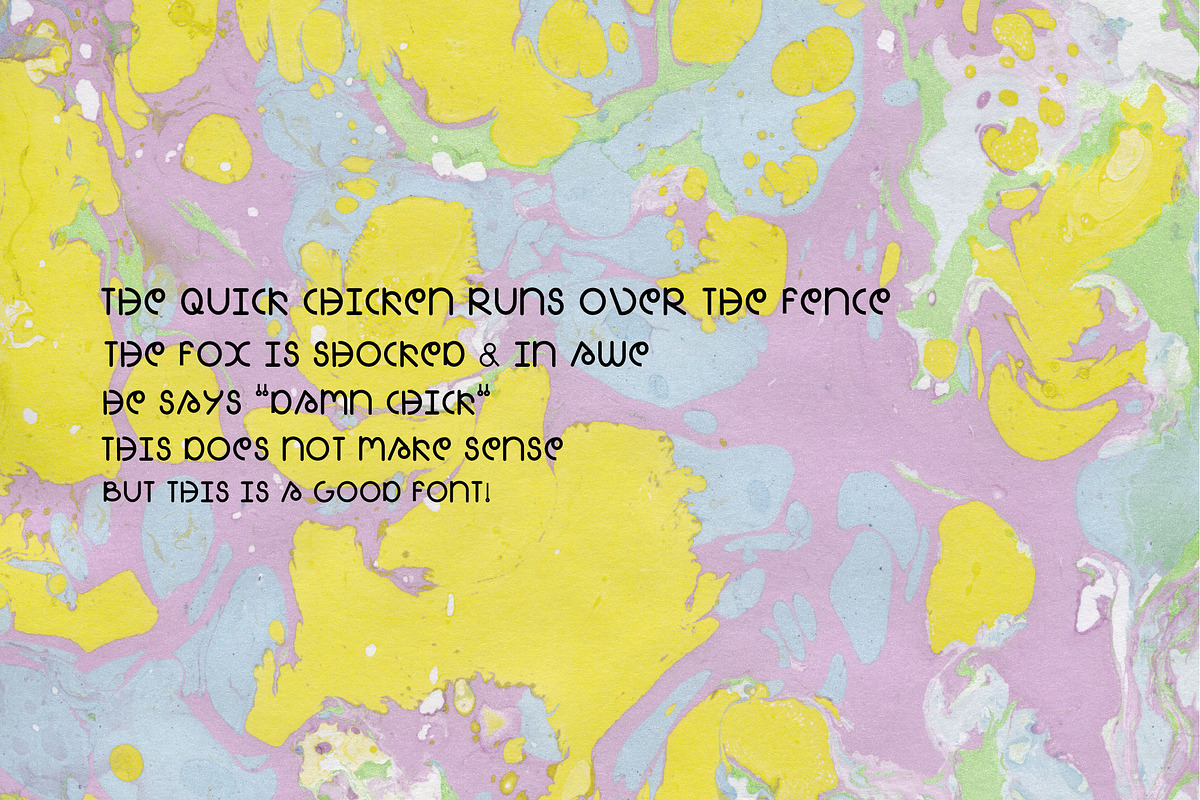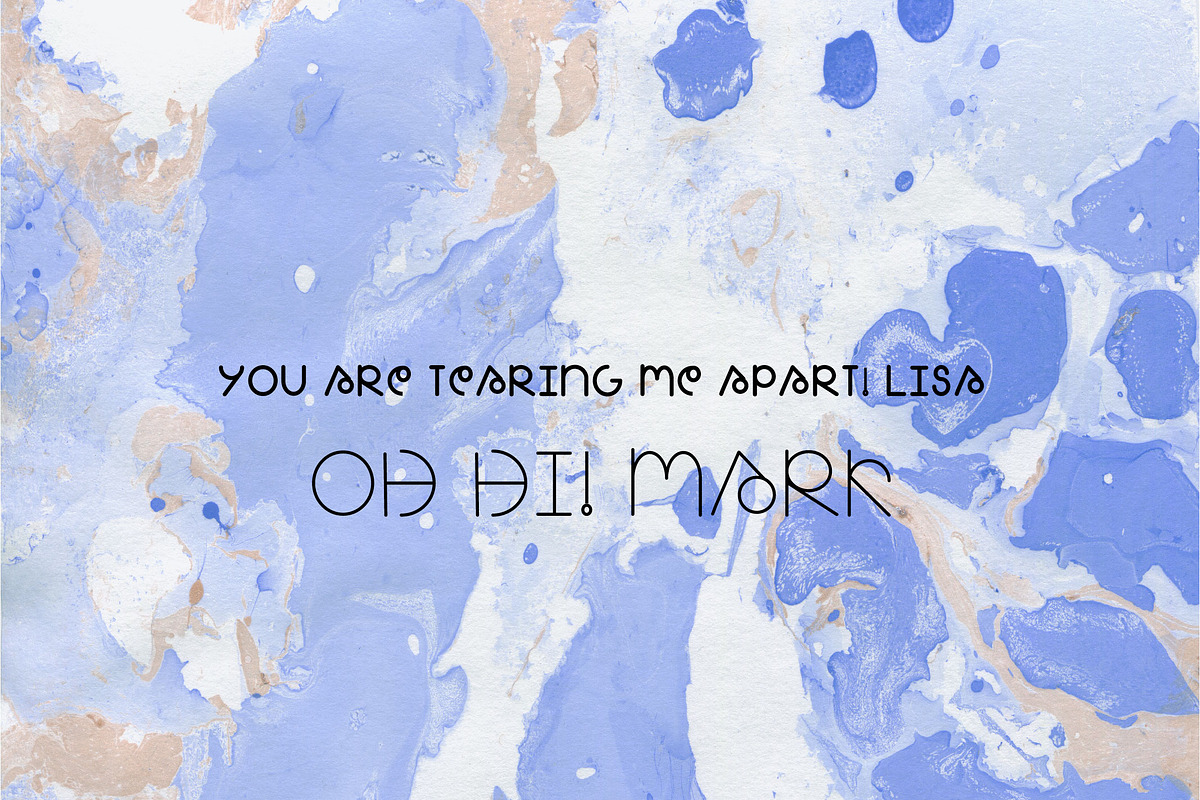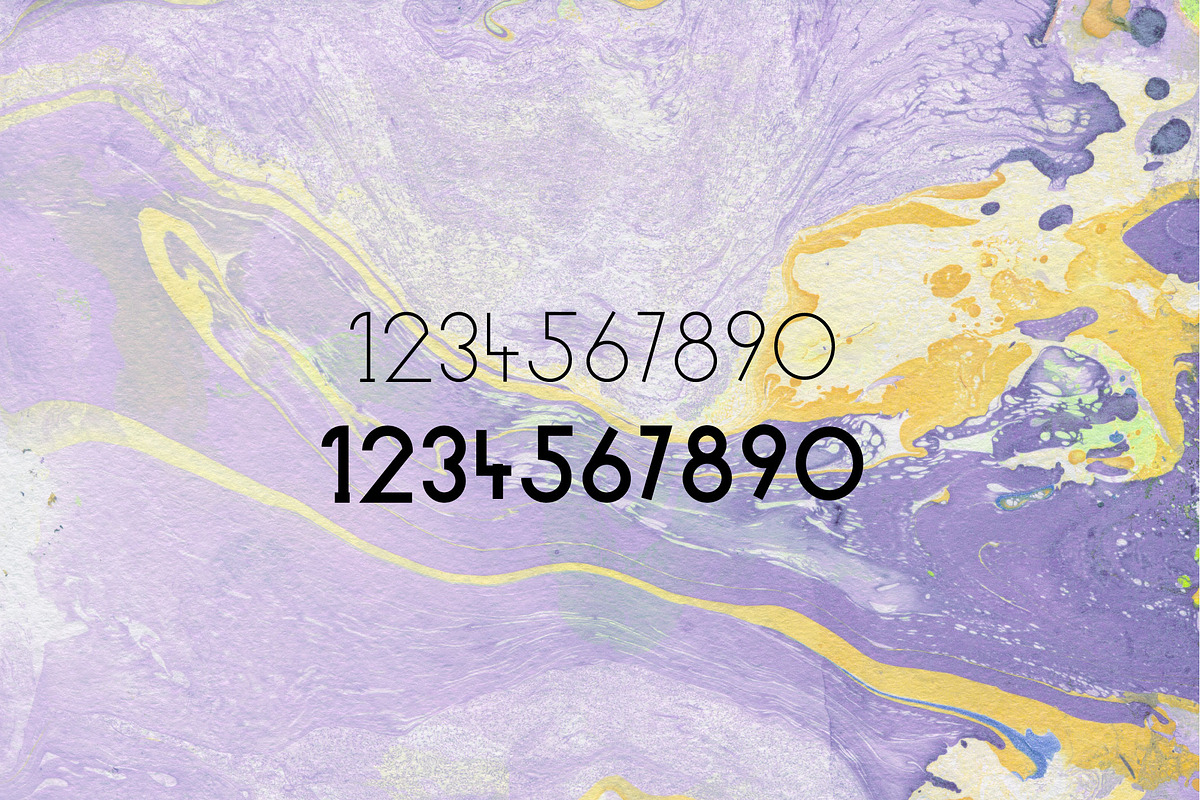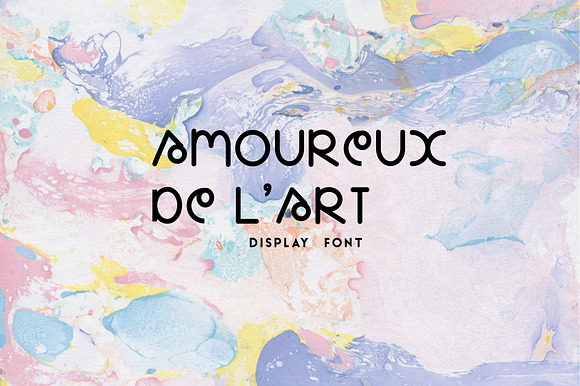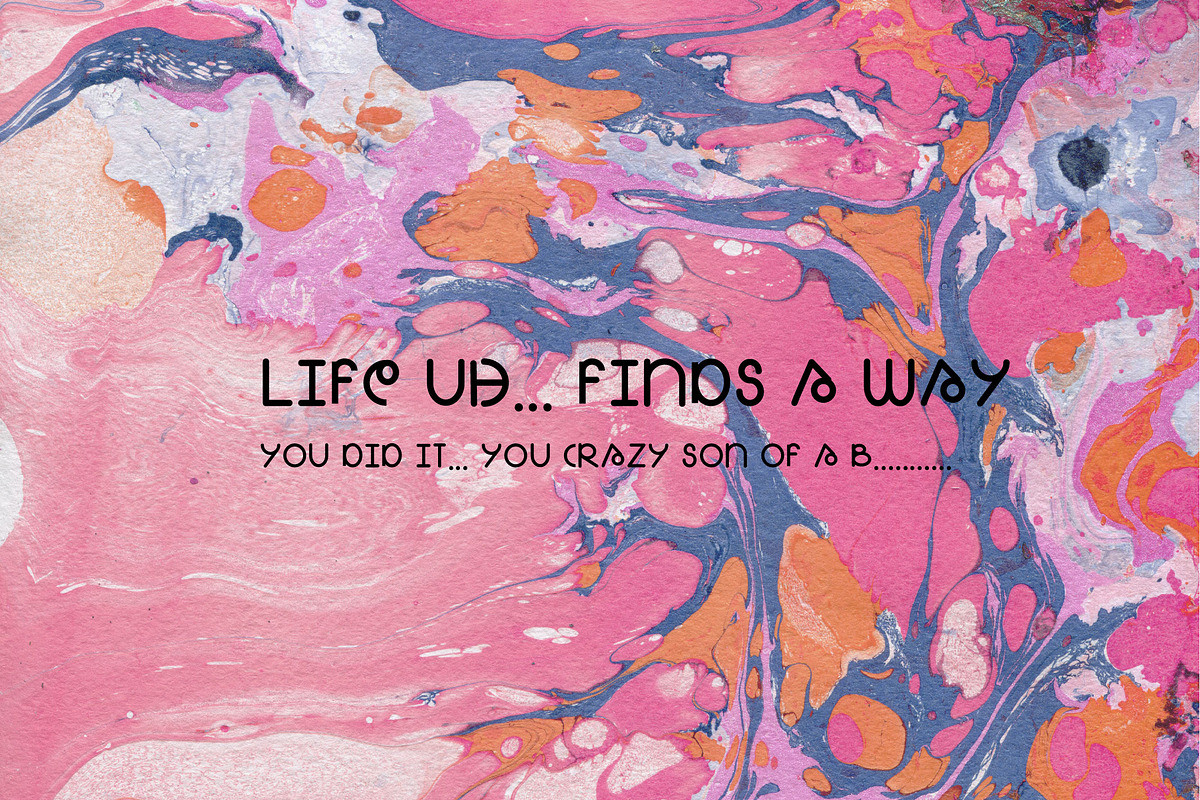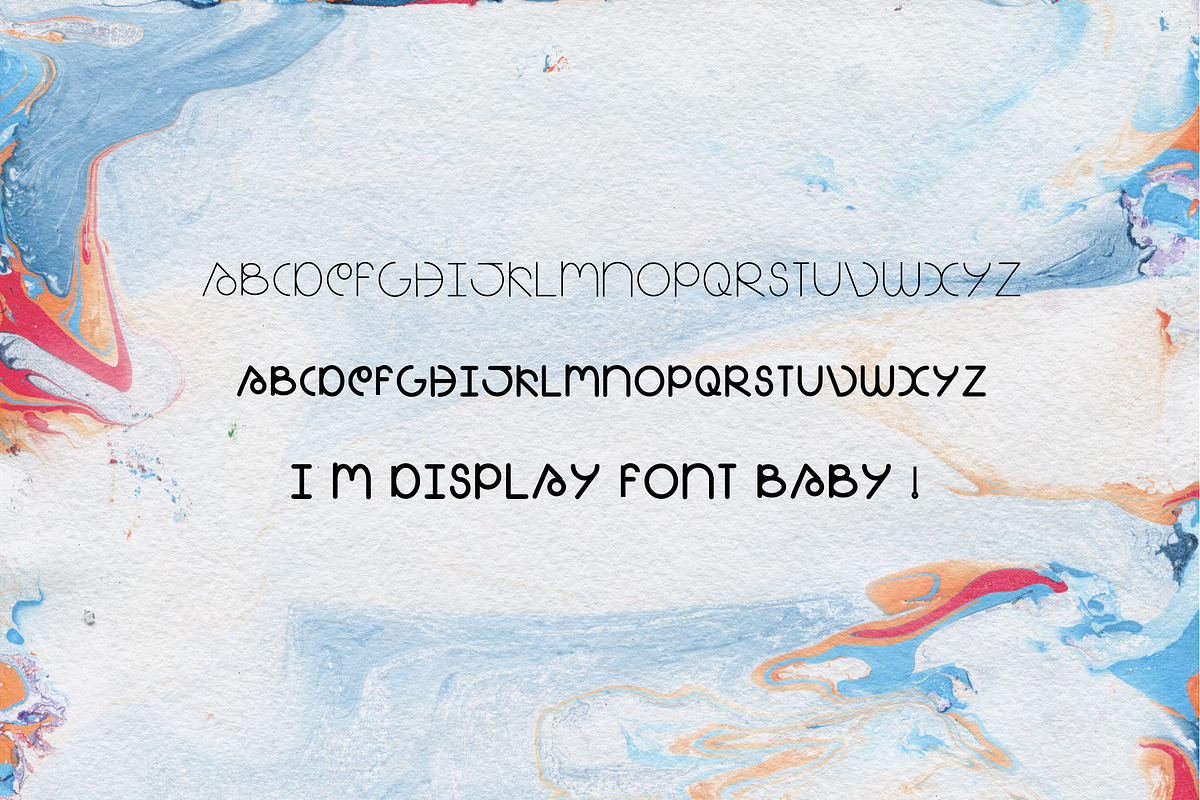
Amoureux de l'art FONT
Fun Display Font with rounded letters.
Why Amoureux de l'art FONT is worth a look
Amoureux de l'art FONT by CandiesnPixels fits naturally into Branding, posters, packaging, typography.